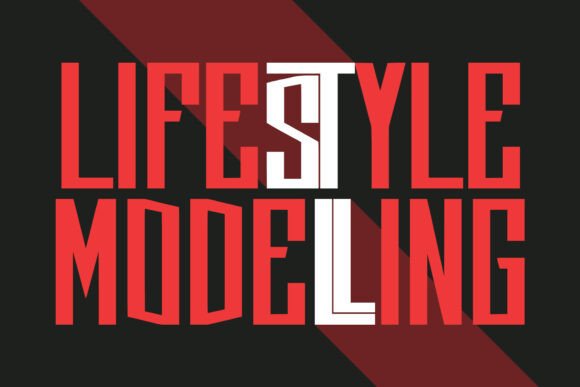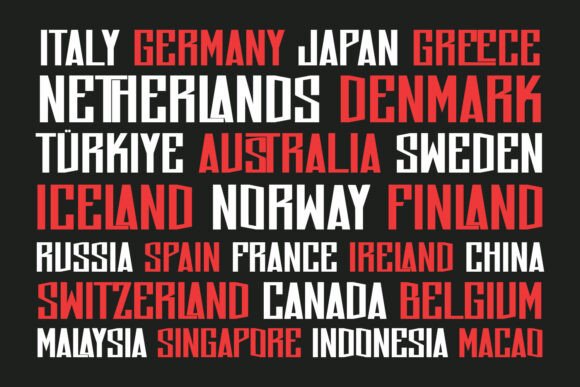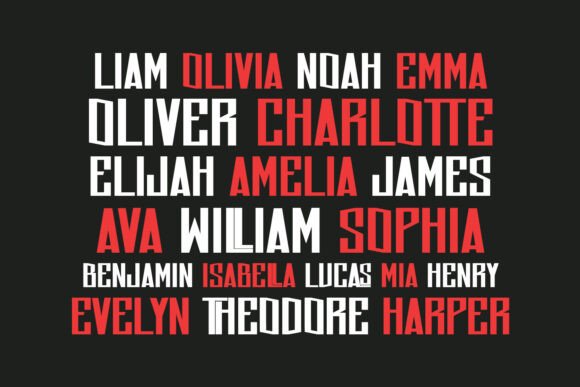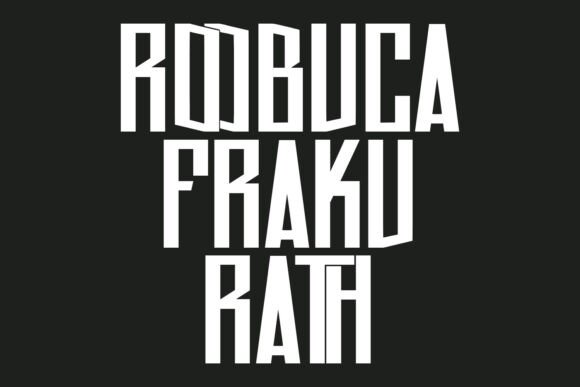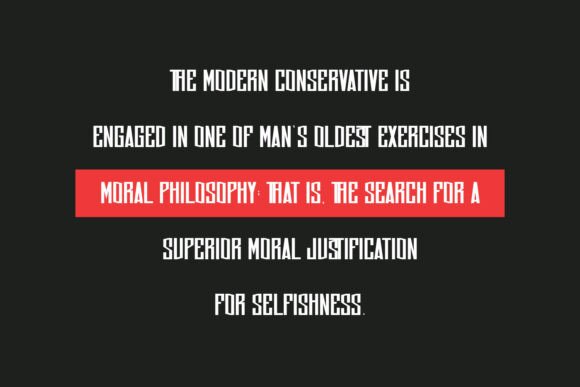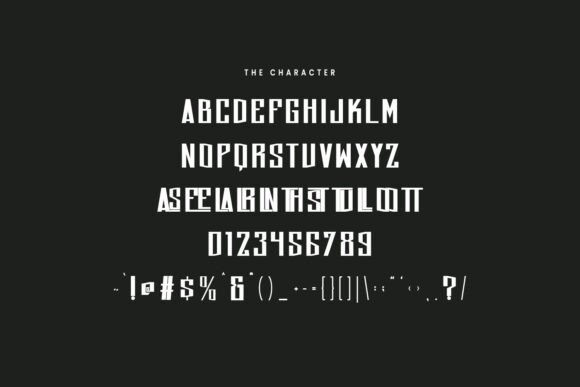
Introduction to Melan Zokui Font
Melan Zokui is a modern sans-serif display font with clean lines and a sleek, contemporary style.
It’s bold and easy to read, making it perfect for headlines, logos, and attention-grabbing designs Its minimalistic design adds a fresh, stylish touch to any project.